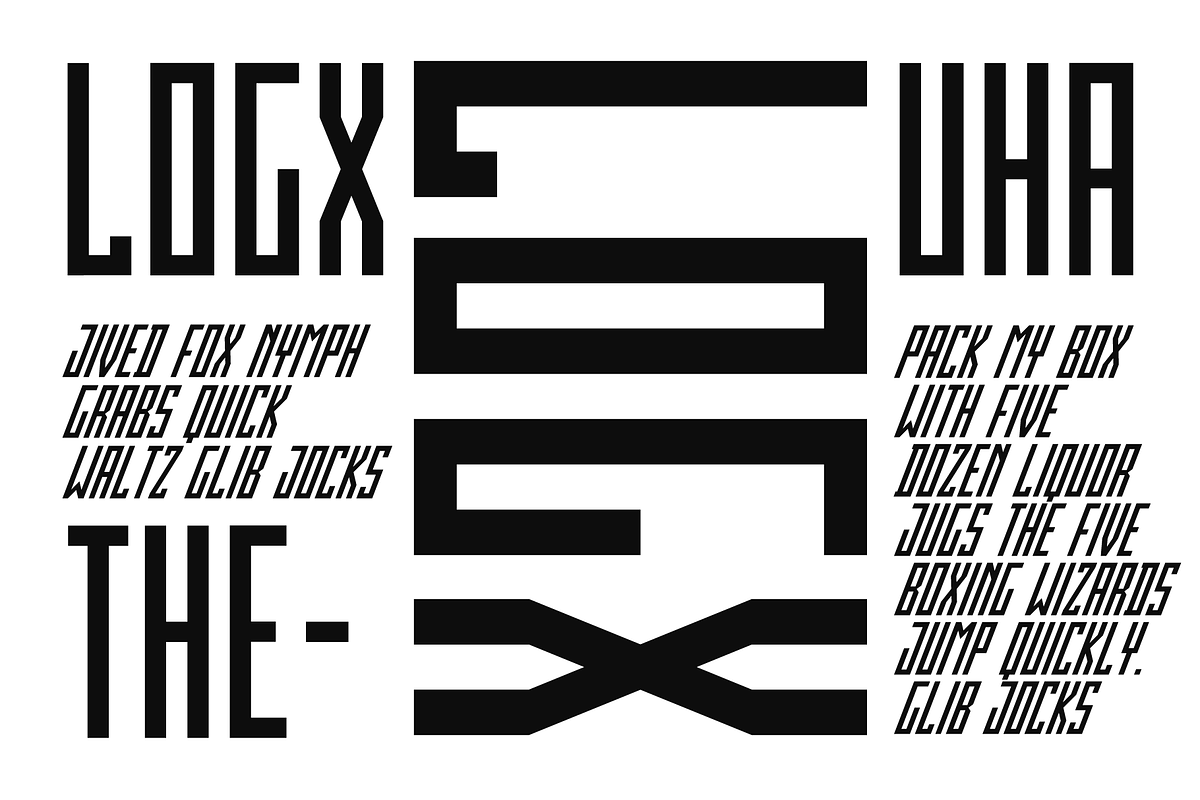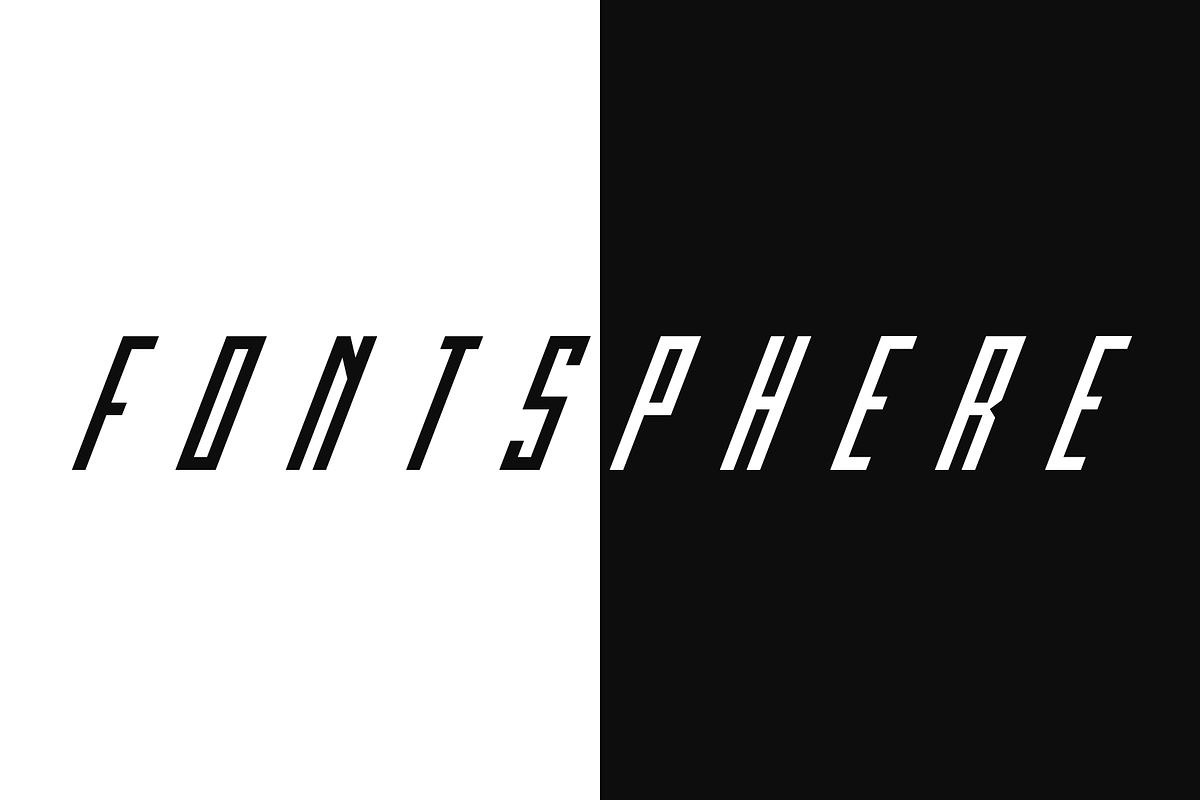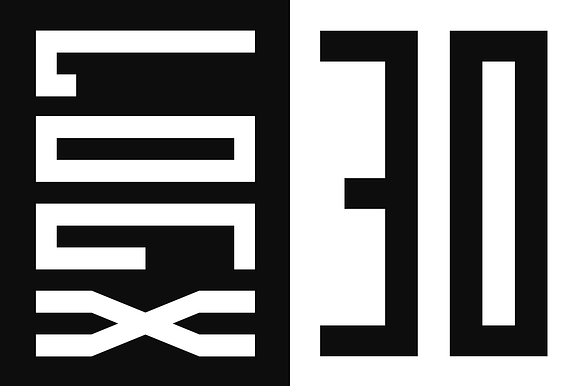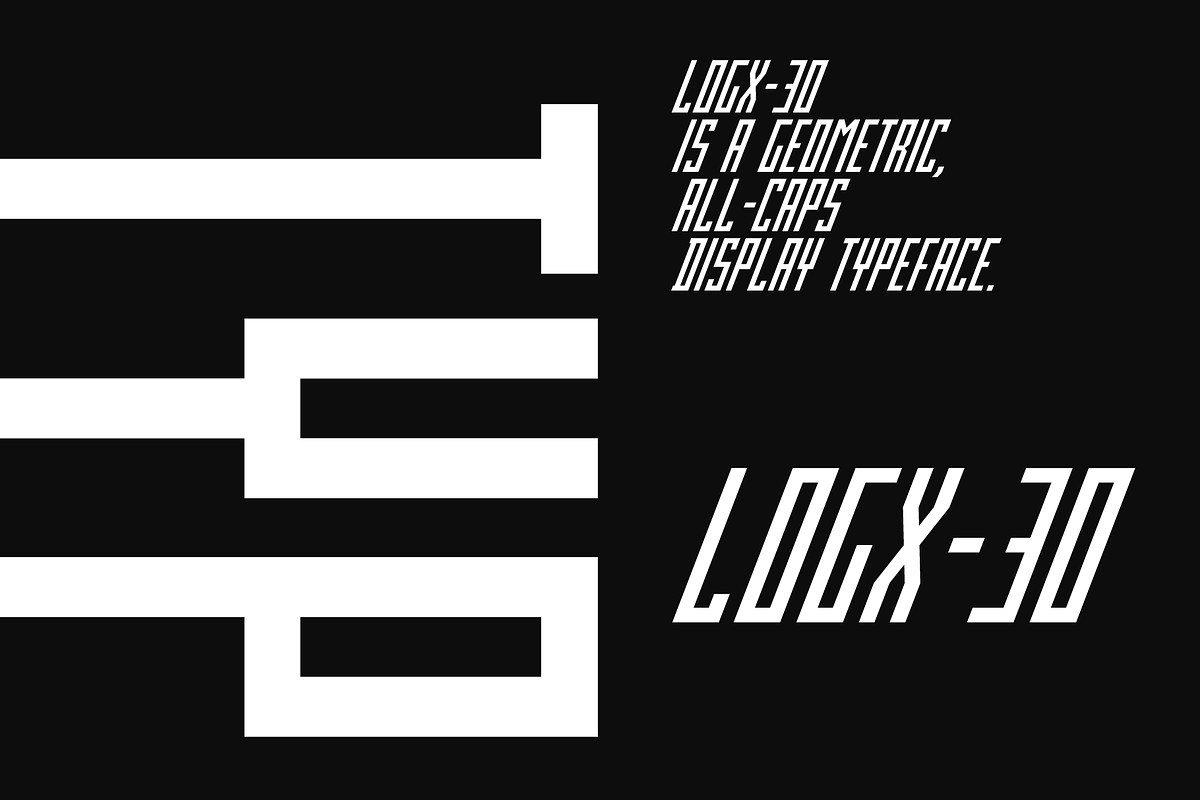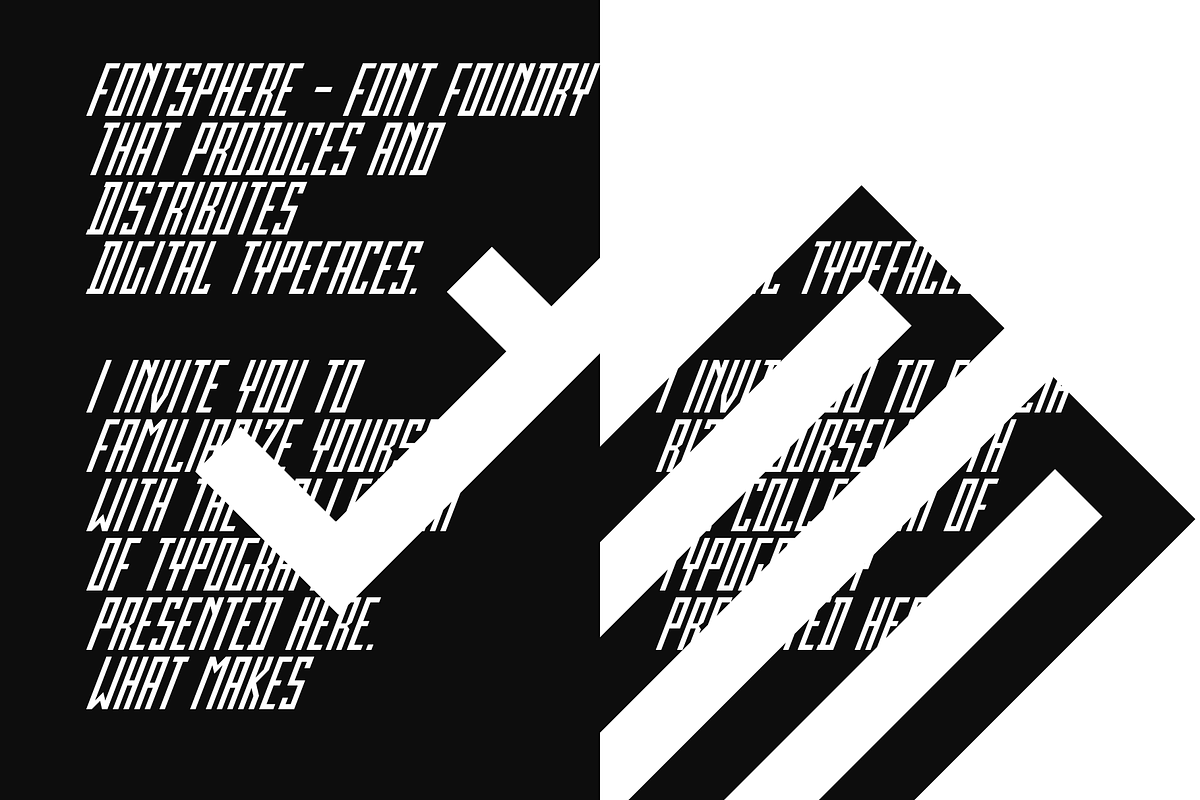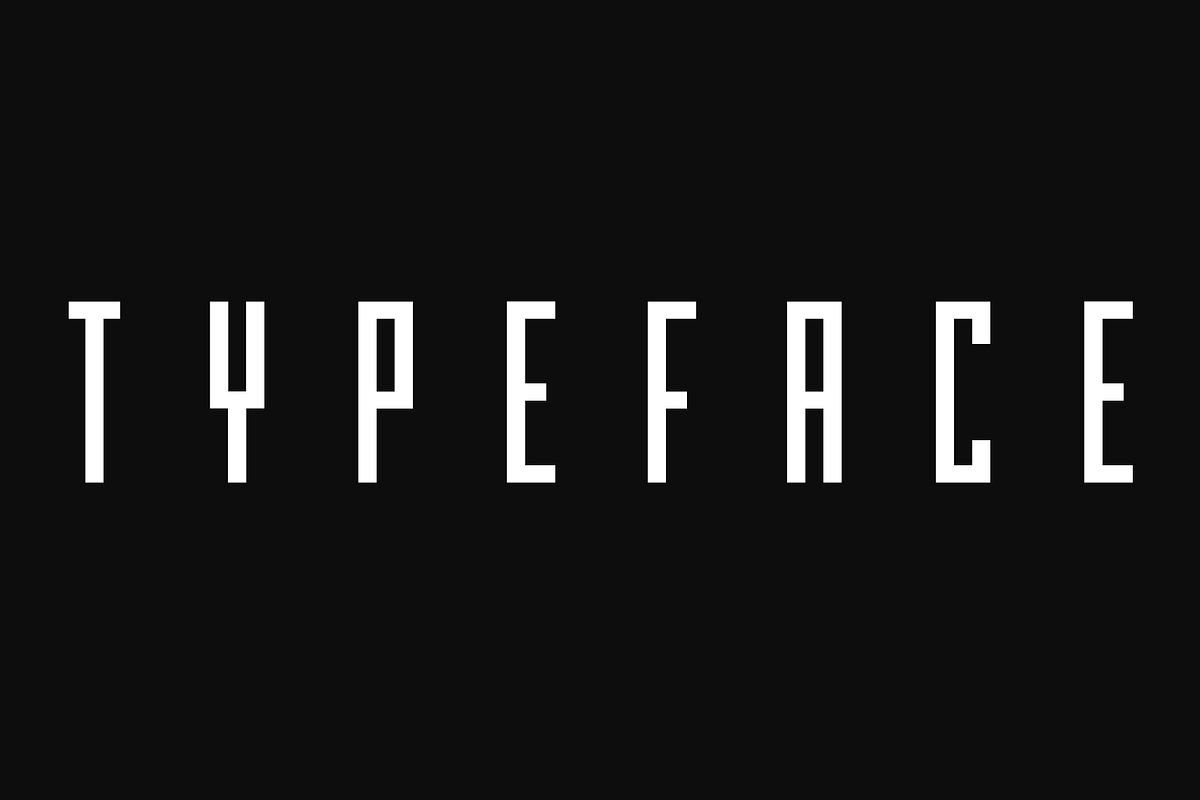
LOGX-30 Font Family
LOGX-30 is a geometric, all-caps, display typeface. As a brother of LOGX-10 and LOGX-20, this is the most narrow version in a series of three related typefaces.
LOGX-30 is designed, like other LOGX versions, for a wide range of graphic designs and visual identifications. I think that it works best in works with a technical, geometric style, and rather striving for minimalism.
Both the normal and the italic version can be used together to compose graphics, photos, large and small text in an interesting way.